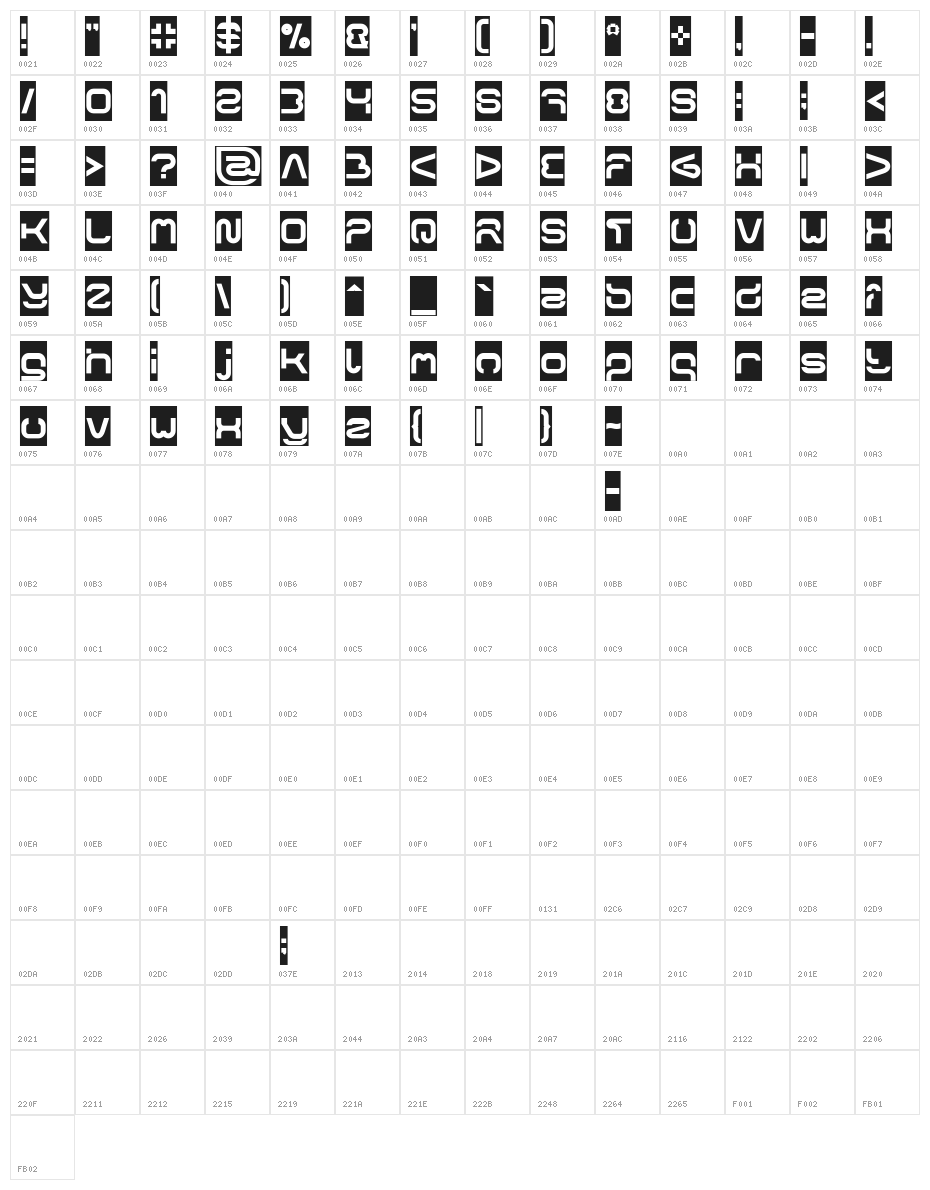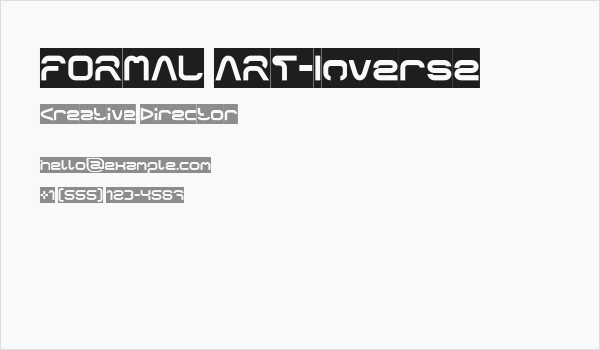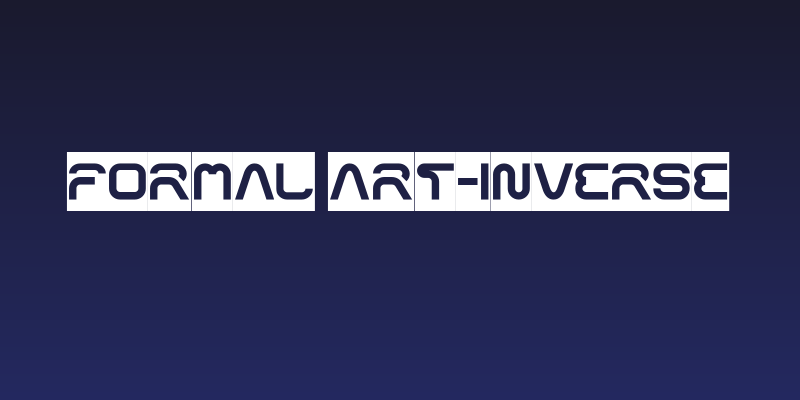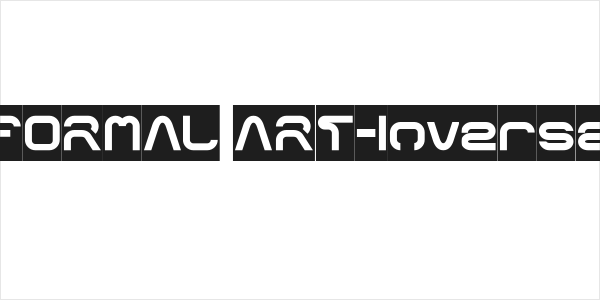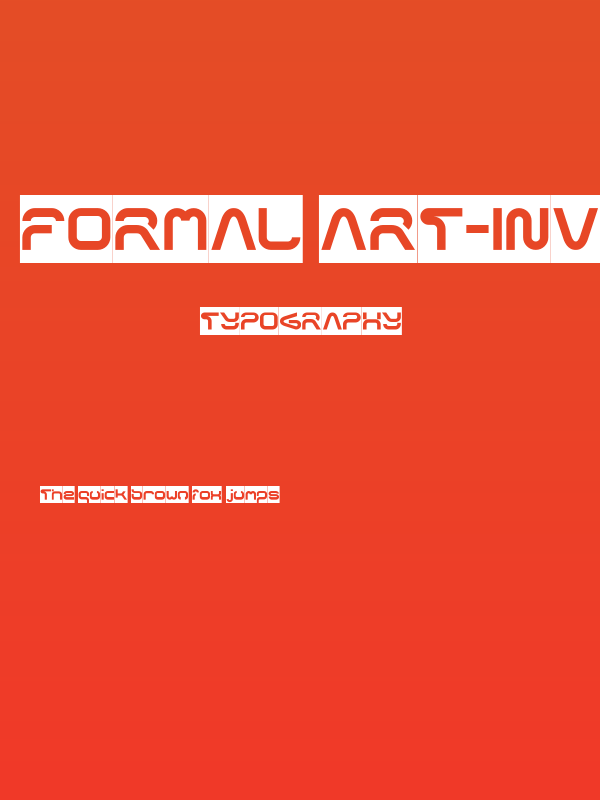
FORMAL ART-Inverse Font
FORMAL ART-Inverse Description
This font features a futuristic and geometric design, characterized by its bold and angular letterforms. The characters are crafted with a unique blend of sharp edges and smooth curves, creating a striking visual contrast. The uppercase and lowercase letters maintain a consistent style, with a focus on symmetry and balance. The numerals and special characters follow the same design principles, ensuring a cohesive look across all glyphs. The font's distinct appearance makes it ideal for projects that require a modern and edgy aesthetic.
| Proposed Projects | Ideal for sci-fi themed designs, technology branding, video game titles, and modern posters. |